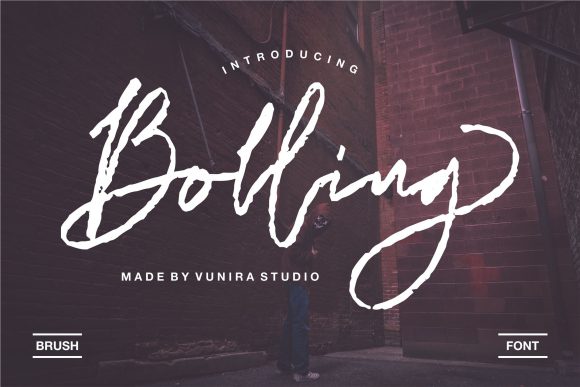
Bolling Font
Adorn your digital creations with the enchanting Bolling Font, a breathtaking script font that exudes elegance and timeless charm. Its graceful strokes and alluring curves lend a captivating aura to your designs, leaving an unforgettable impression on your audience. Immerse yourself in the world of Bolling, where creativity flourishes and artistic expression knows no bounds.
With Bolling as your creative companion, unleash your imagination and embark on a typographic adventure. Its versatility knows no limits, seamlessly adapting to a myriad of projects, from heartfelt love letters and enchanting invitations to eye-catching logos and captivating social media posts. Let Bolling's captivating presence elevate your designs to new heights, leaving a lasting impact on all who encounter your creations.
Indulge in the limitless possibilities that await you with Bolling. Its meticulously crafted glyphs and swashes, accessible with ease through PUA encoding, provide endless opportunities for customization and personalization. Transform ordinary text into mesmerizing works of art, captivating your audience with every stroke.
Embrace the beauty of Bolling, a font that speaks to the heart and ignites the imagination. Its enchanting essence adds a touch of magic to your designs, leaving a lasting impression that lingers long after the page is turned or the screen fades. Whether you're a seasoned designer or just starting your creative journey, Bolling is the perfect companion, guiding you towards typographic excellence.